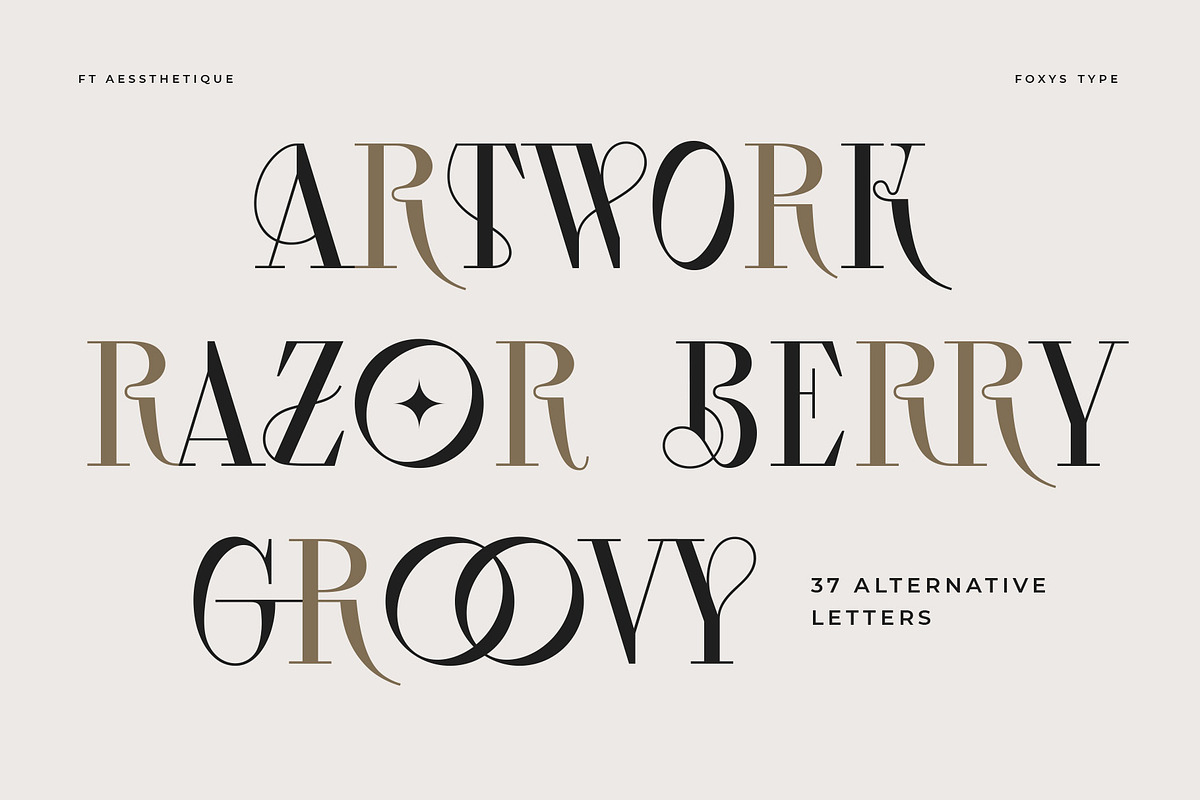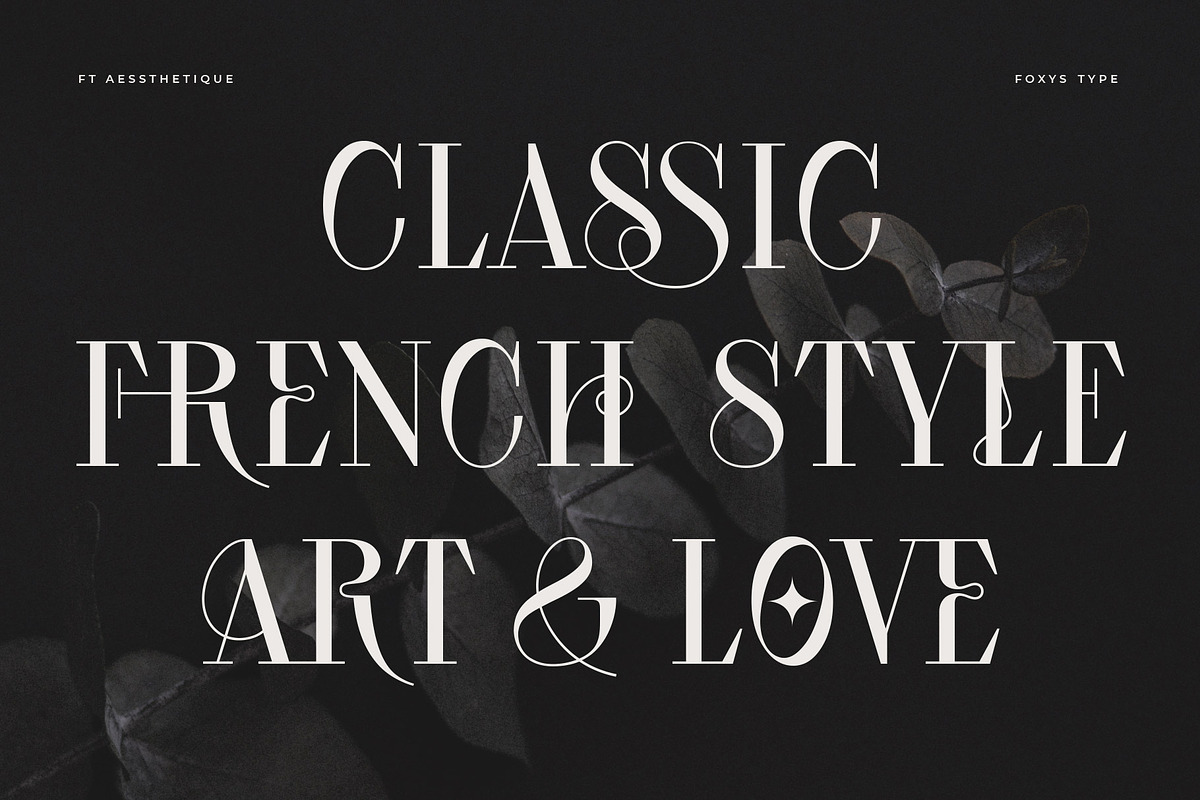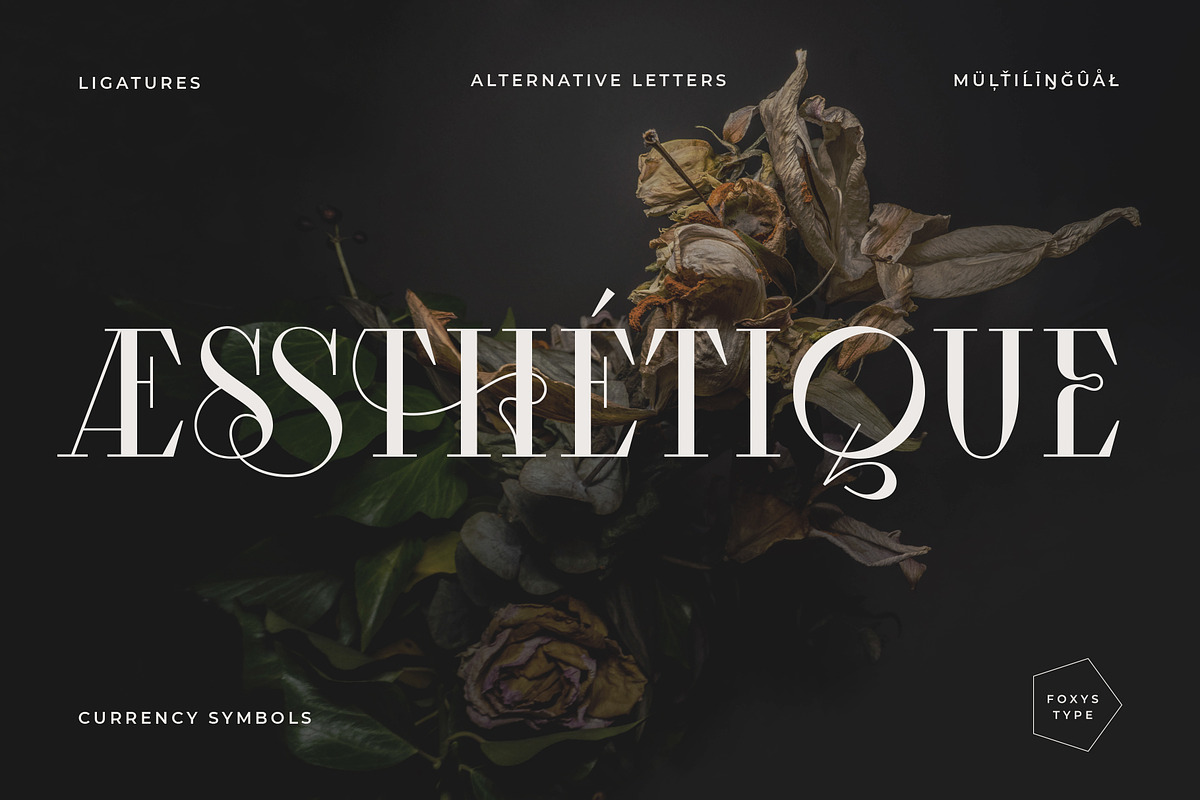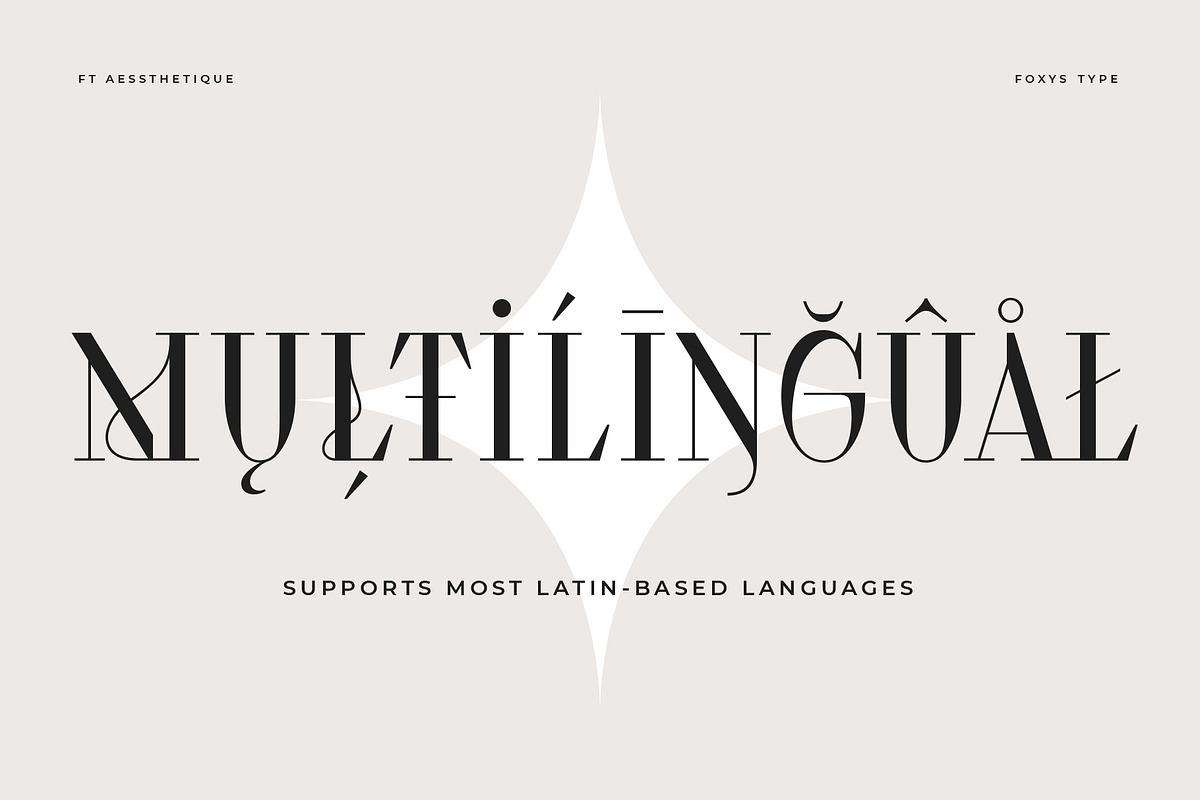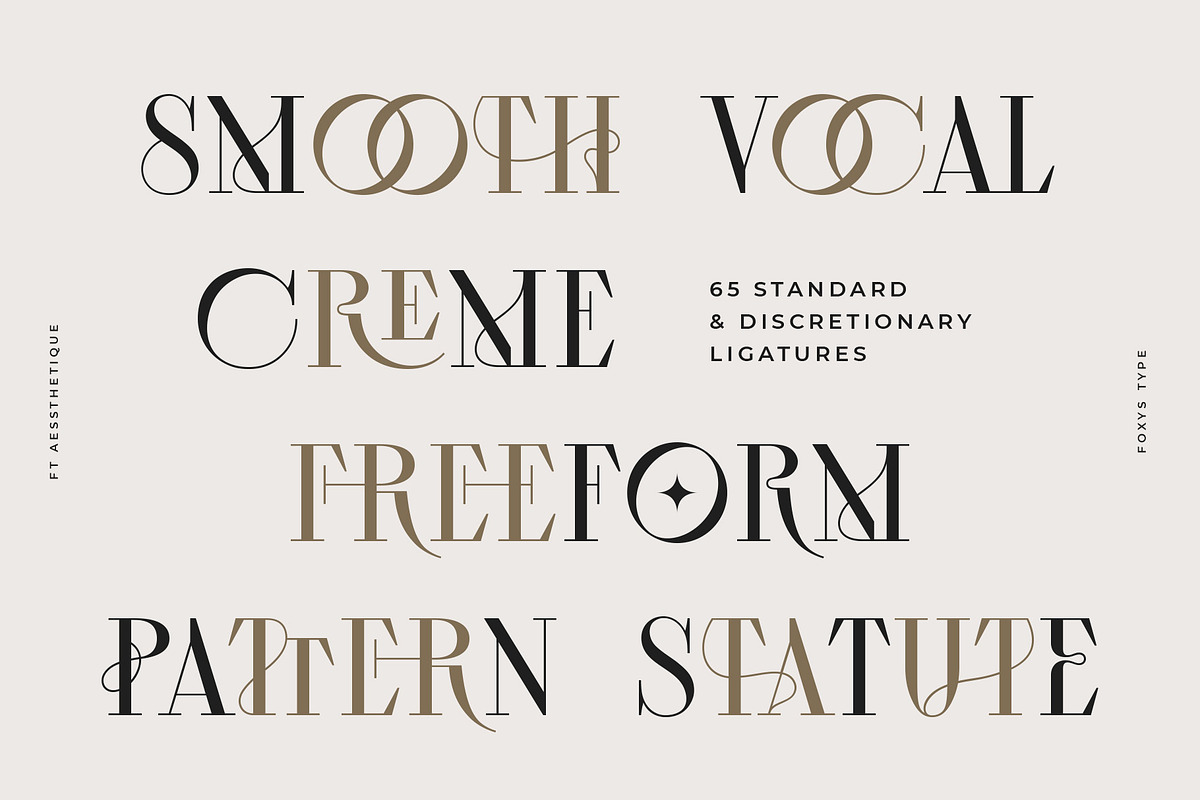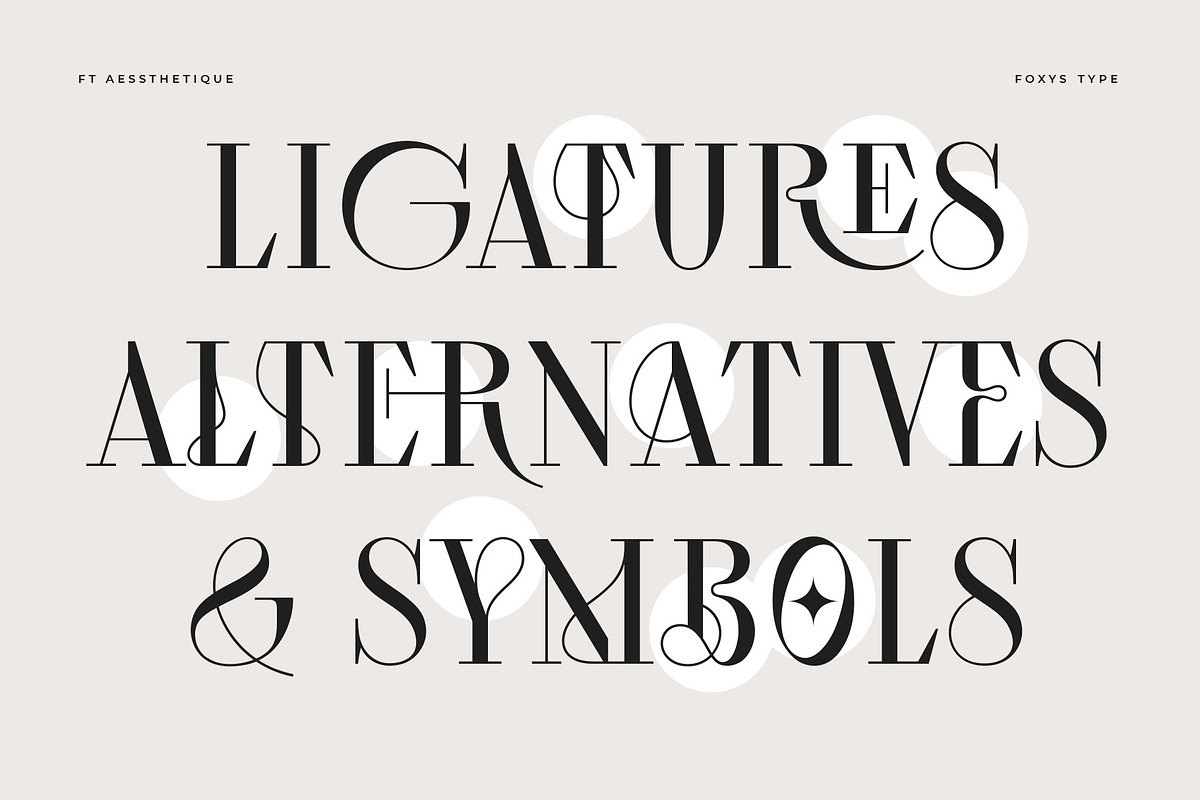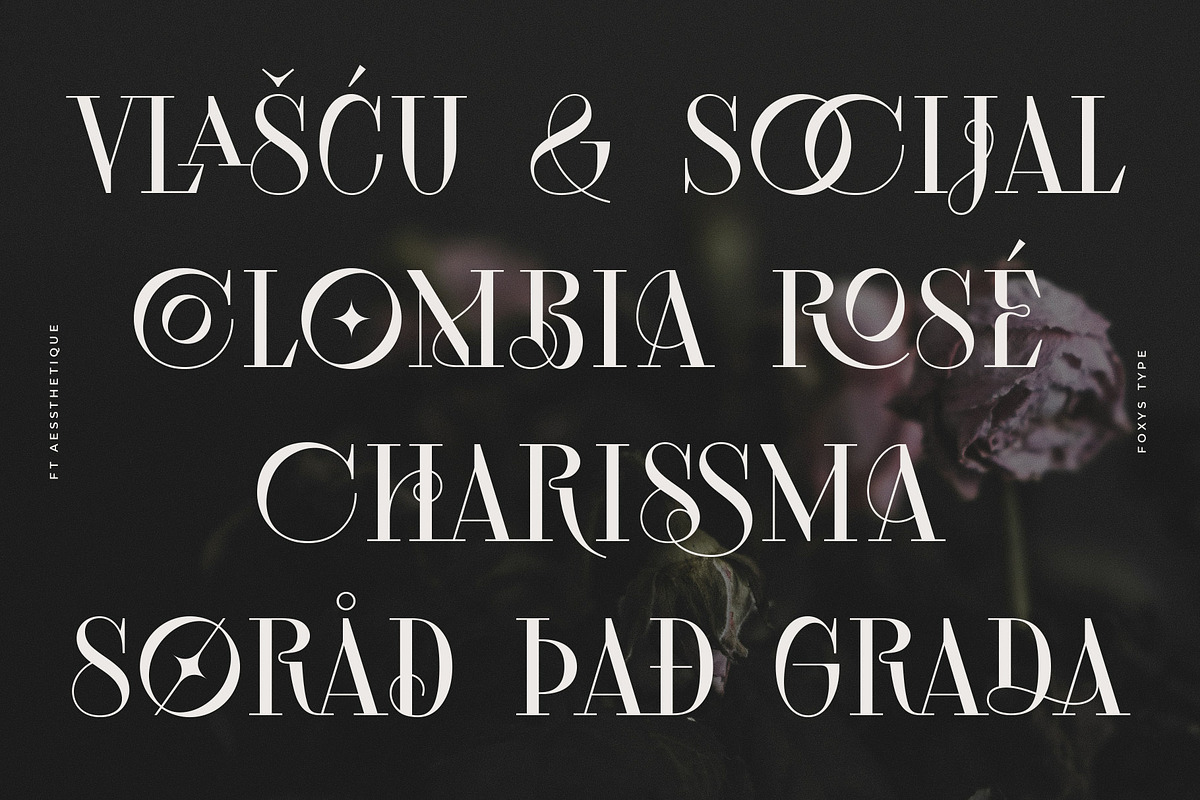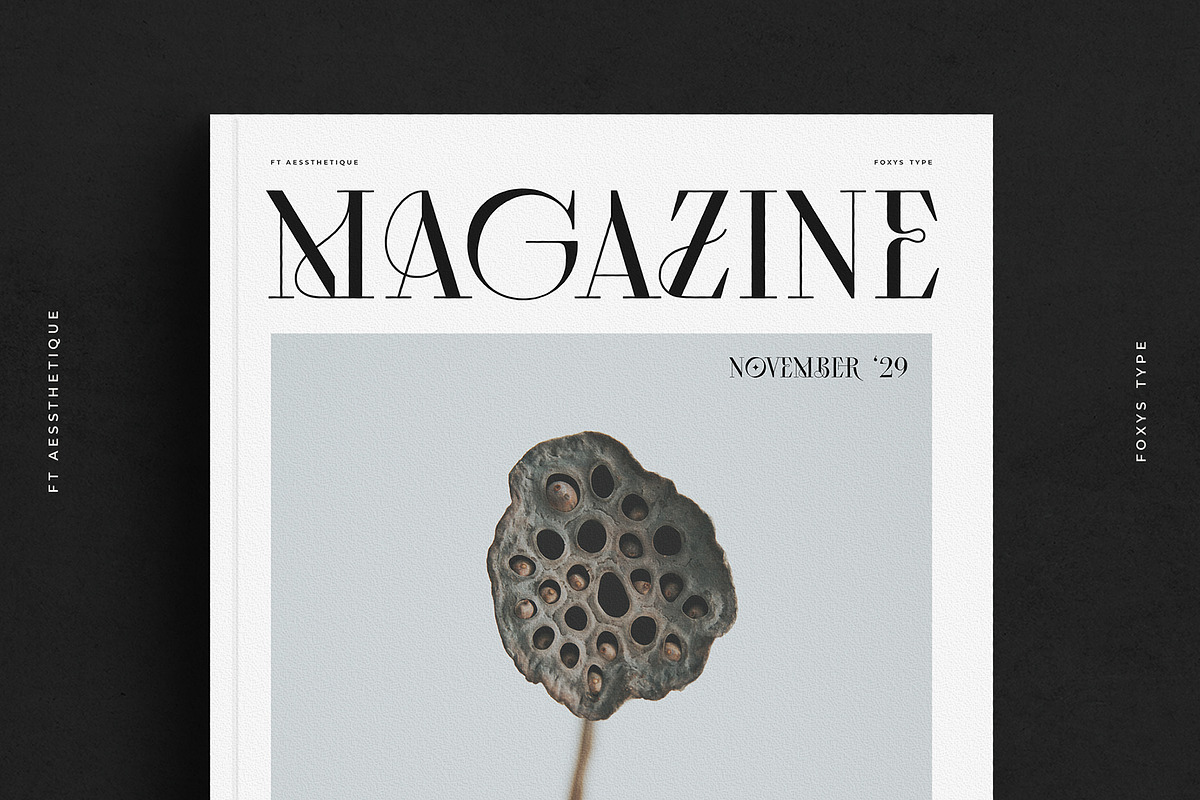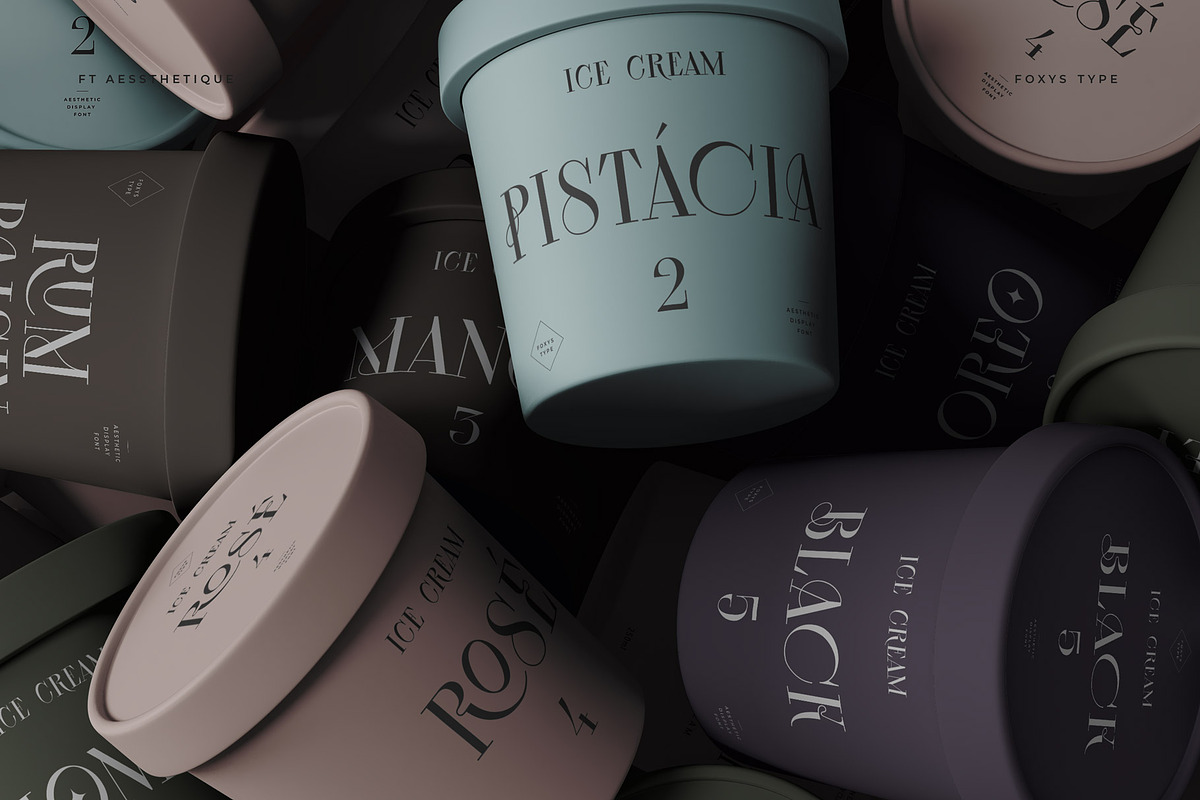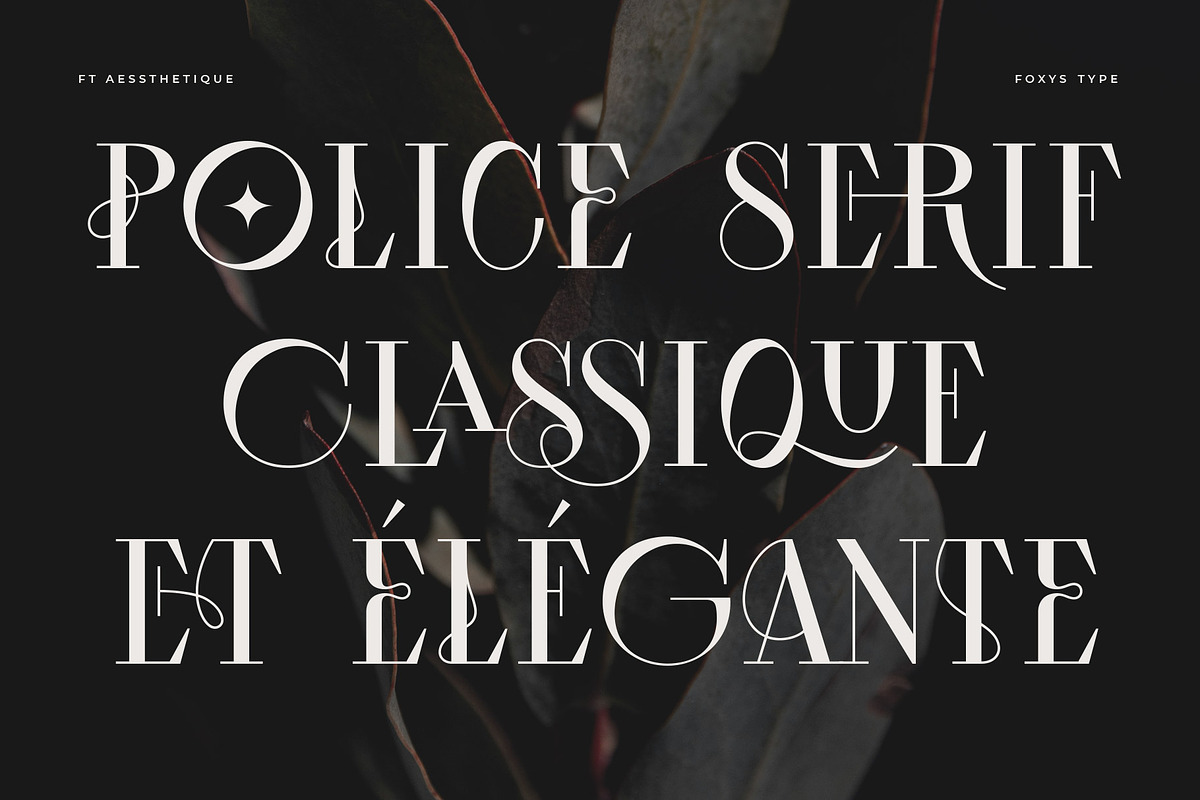
Aessthetique
AESSTHETIQUE
FT Aessthetique is a modern classic serif font that effortlessly combines delicate lines with bold strokes. Its aesthetic captures a beautifully romantic style, blending vintage elements with nostalgia.
FT Aessthetique goes beyond being a font; it's a crucial brand element that seamlessly complements other fonts, imparting a sophisticated appearance to any project. Its professional characteristics make it appealing for expressing individuality across various endeavors. The font is perfect for large headlines and titles.
FT Aessthetique features 65 ligatures and 35 alternative letters, expanding its versatility and providing creative possibilities. It supports most Latin-based languages and includes an extended set of symbols, punctuation, and diacritical marks.
MÜĻŤIĹĪŊĞÛÅŁ
FT Aessthetique supports most Latin-based languages.
LIGATURES